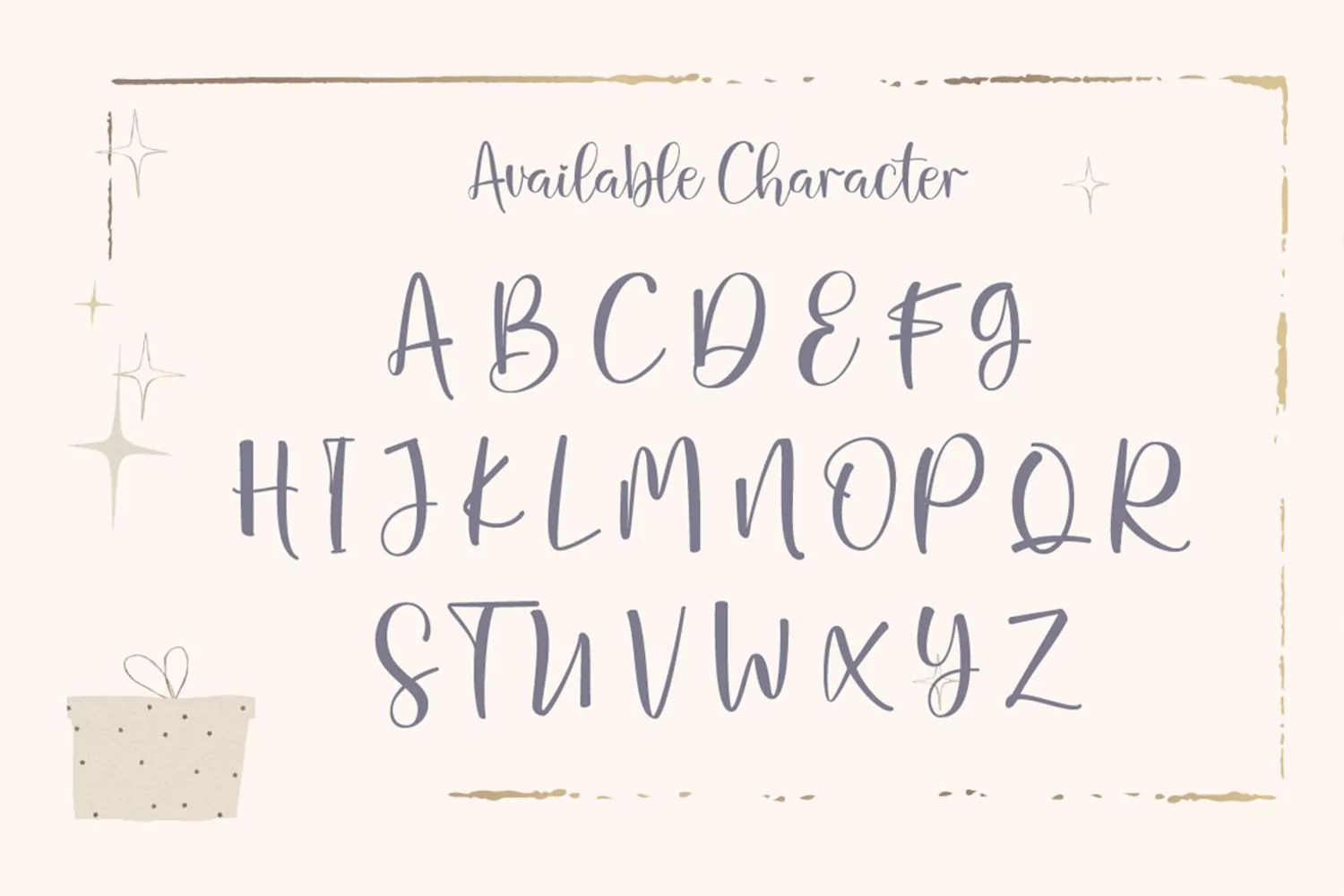
Introducing " Mallesa - Handwritten Script "
Mallesa a Handwritten Display Font With Unique Character
You Can Mix And Match for Your Awesome Project
This fonts is ideal for crafting, branding and decorate your any project. This fonts are perfect for wedding invitation or your blog. Also with their help, you can create a logo or beautiful frame for your home. Or just use for your business, book covers, stationery, marketing, magazines and more.